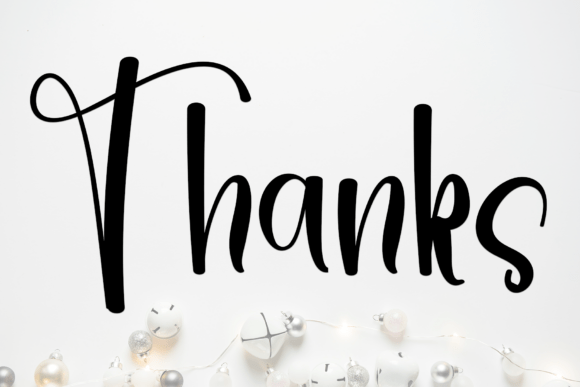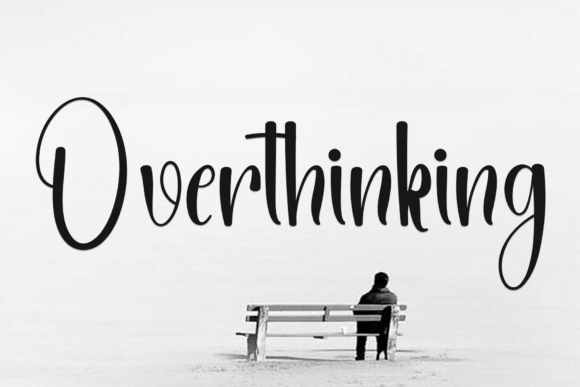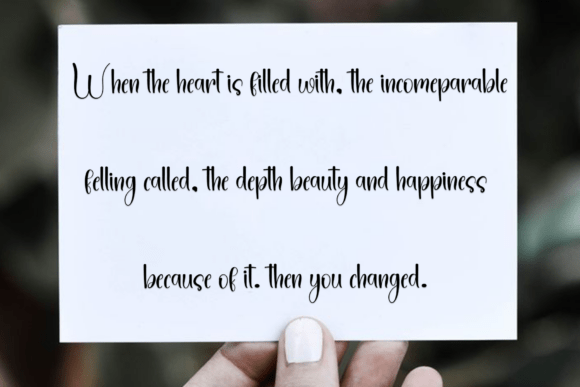
Introduction to Ladybird Font
Remember that moment when you stumbled upon the perfect font for your design project? It’s as if the entire creative process came together in a beautiful harmony. For designers, finding that elusive font can be a game-changer. And today, we’re excited to introduce you to the Ladybird Font – a stunning, high-quality font that’s sure to elevate your designs.
With its unique strokes and special character, the Ladybird Font is a versatile design resource that’s perfect for a wide range of creative projects. Whether you’re working on a design project, crafting a special message, or simply looking for a beautiful font to enhance your work, the Ladybird Font is an excellent choice. And the best part? It’s available for free download, making it a valuable addition to any designer’s toolkit.
Key Features of Ladybird Font
- Unique, hand-drawn design for a creative project
- High-quality font with transparent background for seamless integration
- Download includes a comprehensive character set, including uppercase and lowercase letters
Honest Review: Ladybird Font
I recently had the chance to work with the Ladybird Font, and I must say, it’s been a game-changer for my creative projects. This beautiful, elegant script font is perfect for adding a touch of sophistication to any design.
- High-quality design that’s perfect for a variety of creative projects
One of the things I love about the Ladybird Font is its versatility. It’s perfect for wedding invitations, birthday cards, or any other project where you want to add a touch of elegance. The font is also incredibly easy to use, with a seamless download and installation process.
- Only available in a limited number of font weights
- May not be suitable for highly technical or complex designs
Overall, I’m thoroughly impressed with the Ladybird Font. Its high-quality design and ease of use make it a valuable resource for any designer. While it may have some limitations, I believe it’s well worth the free download.
The Ladybird Font is a high-quality, free download design resource ideal for creative projects requiring a unique and eye-catching style. This font features a transparent background, making it perfect for overlaying on images or using as a standalone design element.
The Ladybird Font is ideal for creative projects such as social media graphics, flyers, and brochures. Its unique style and transparent background make it perfect for overlaying on images or using as a standalone design element.